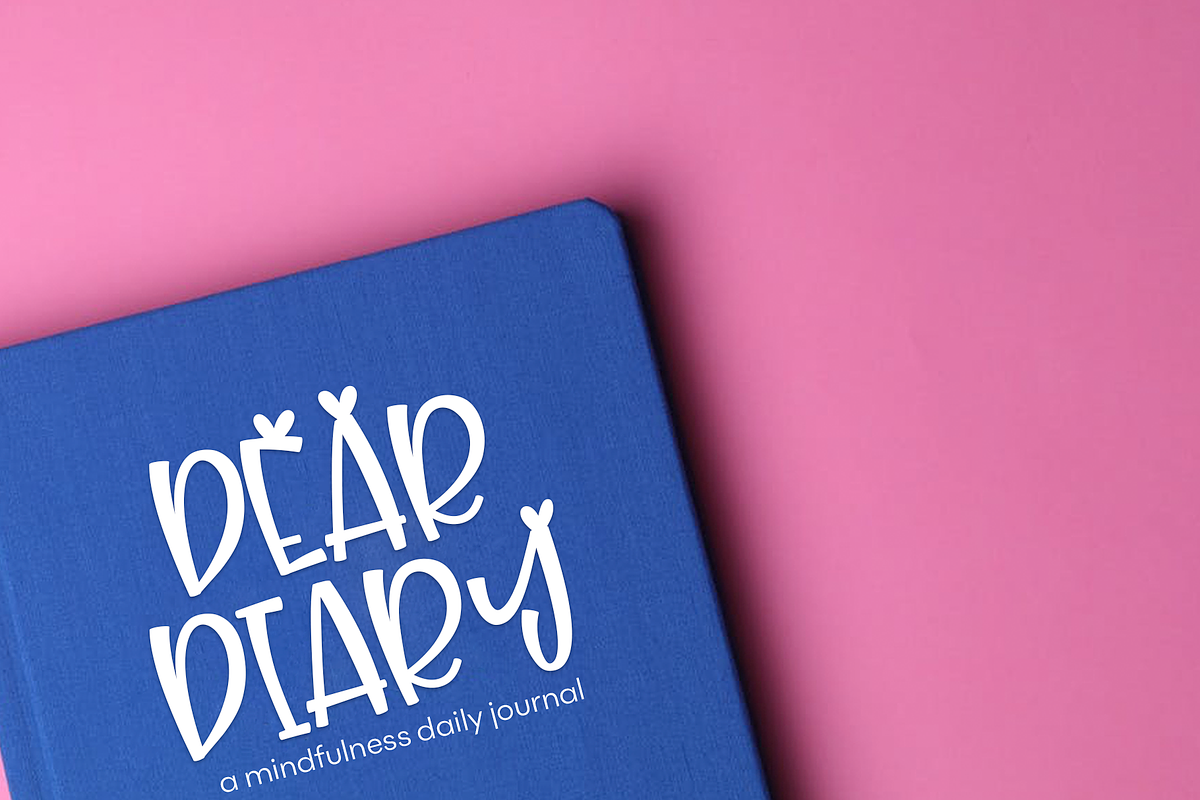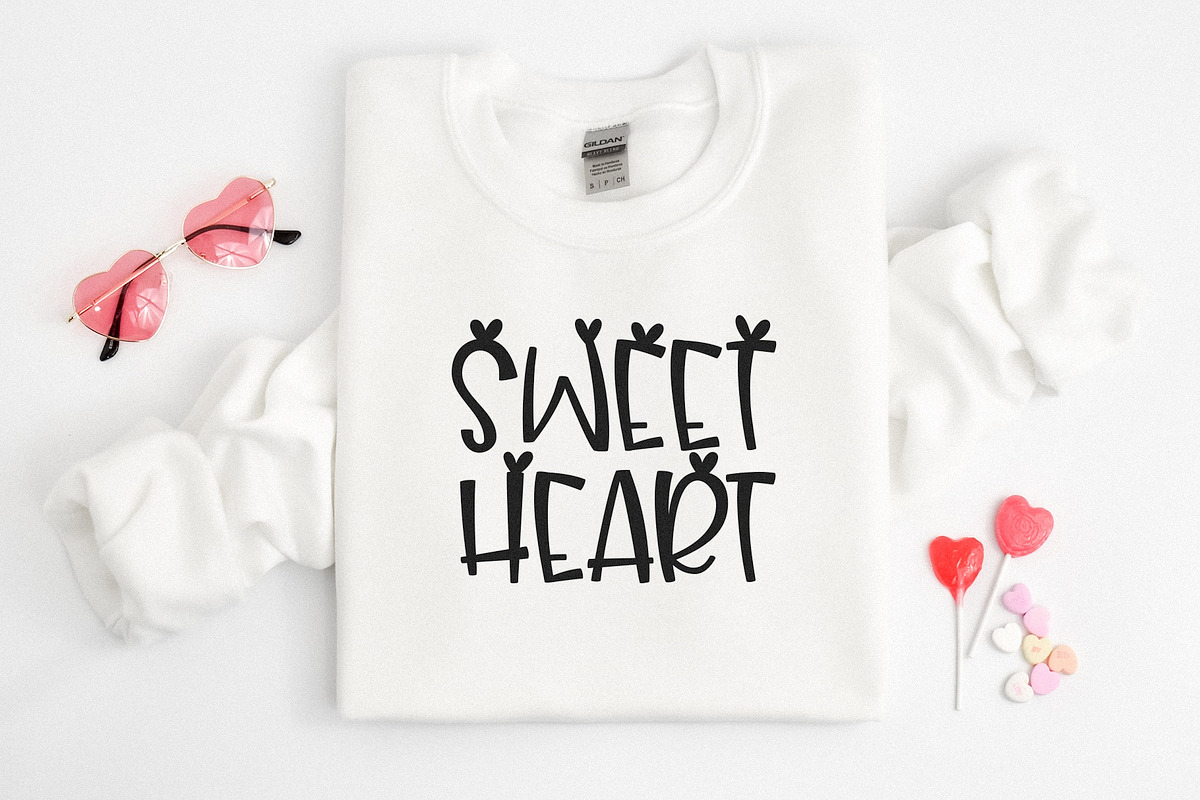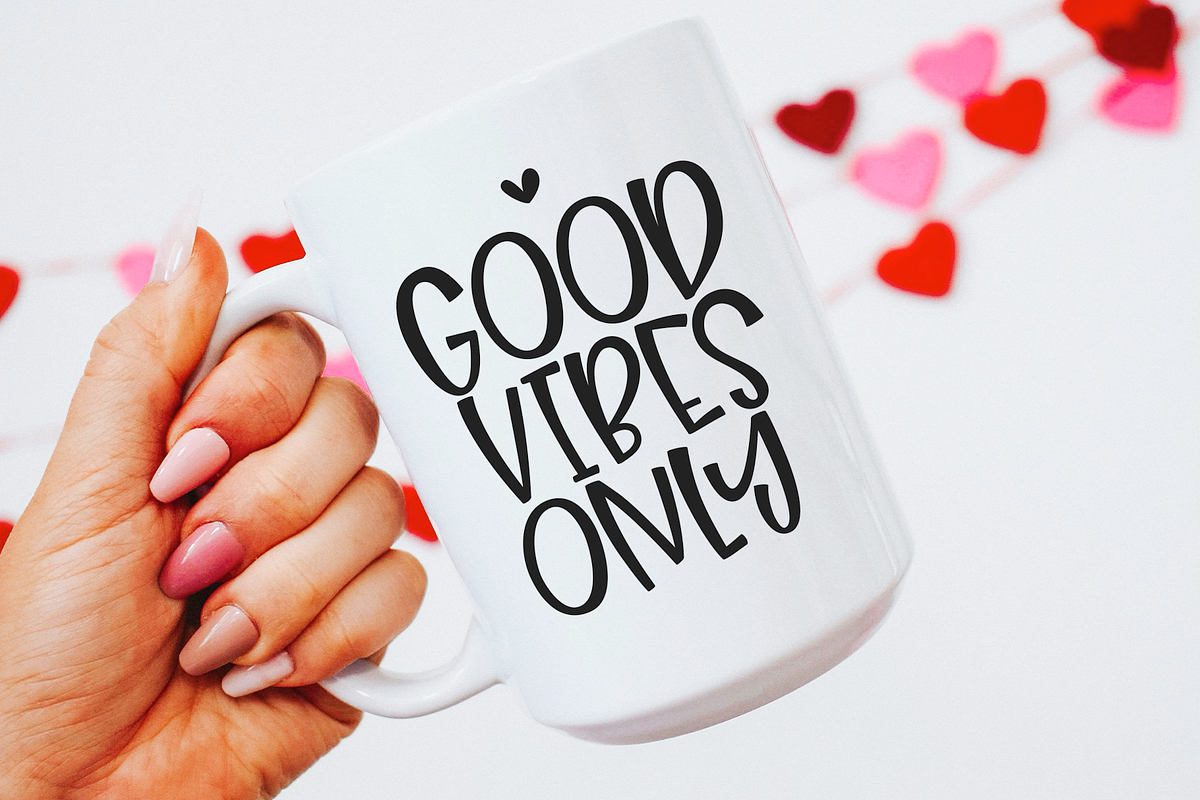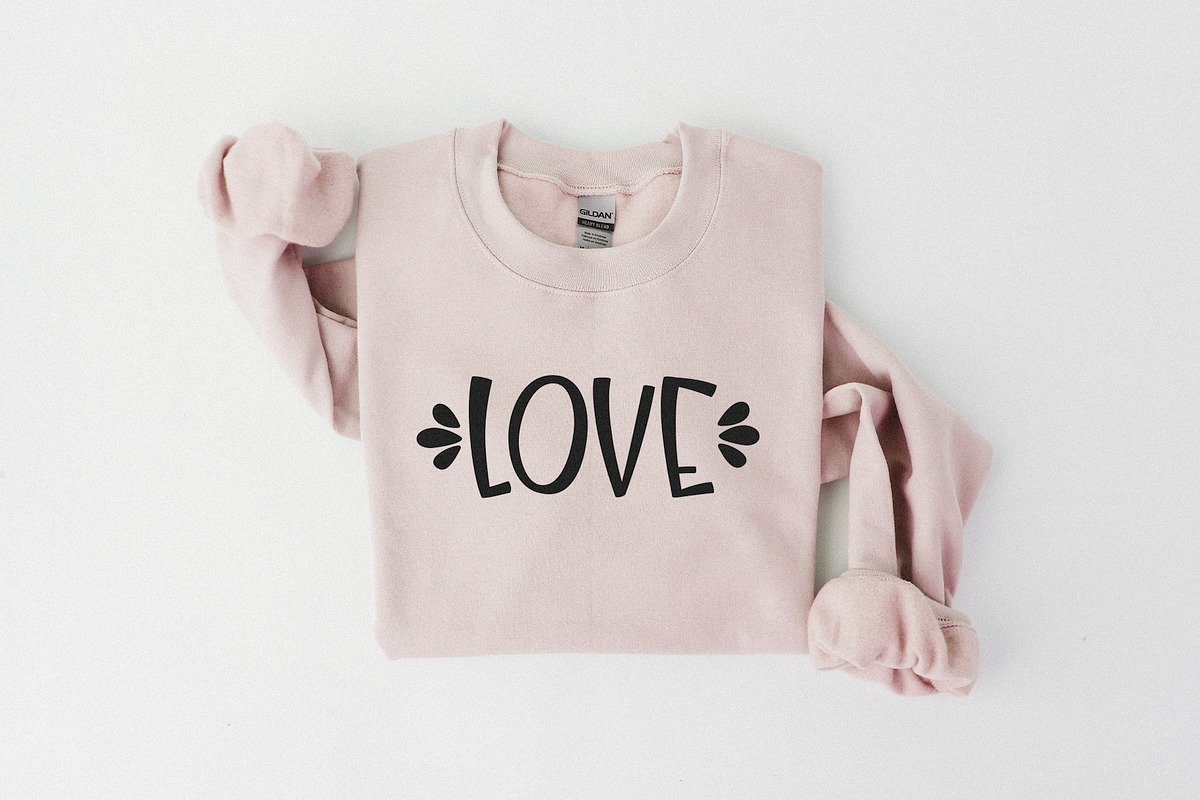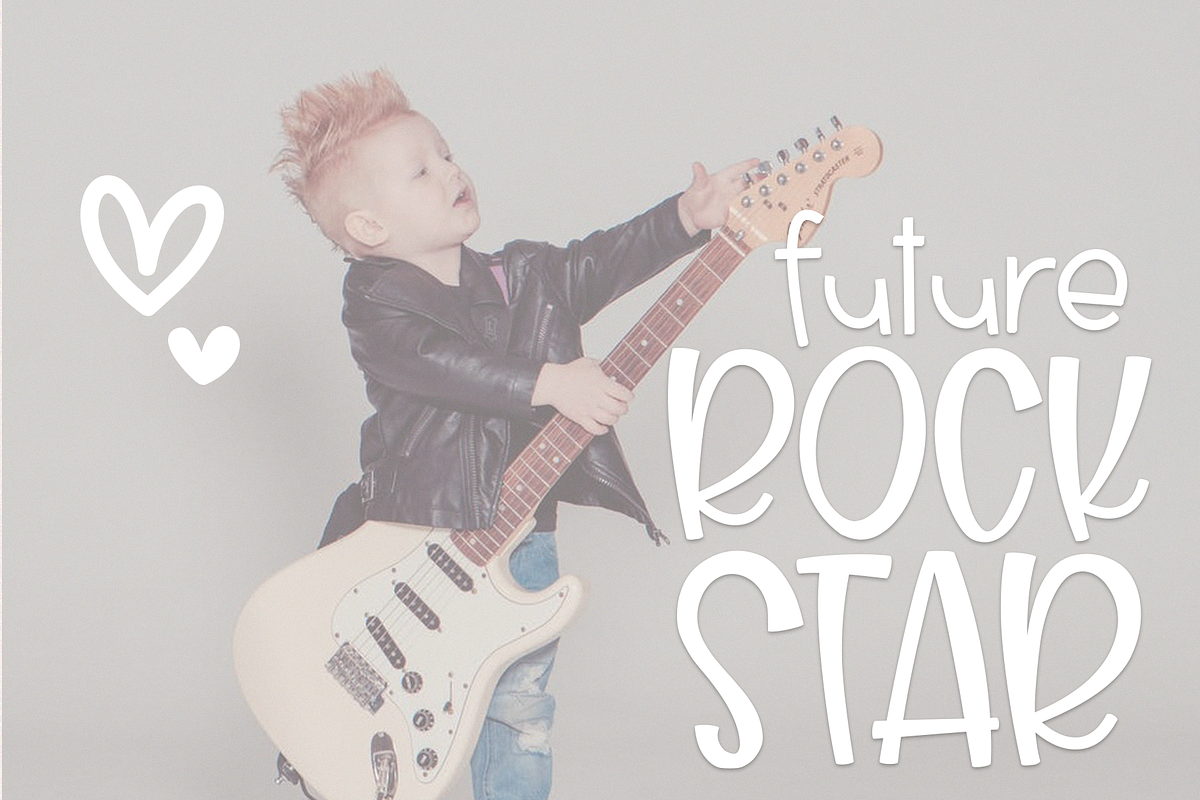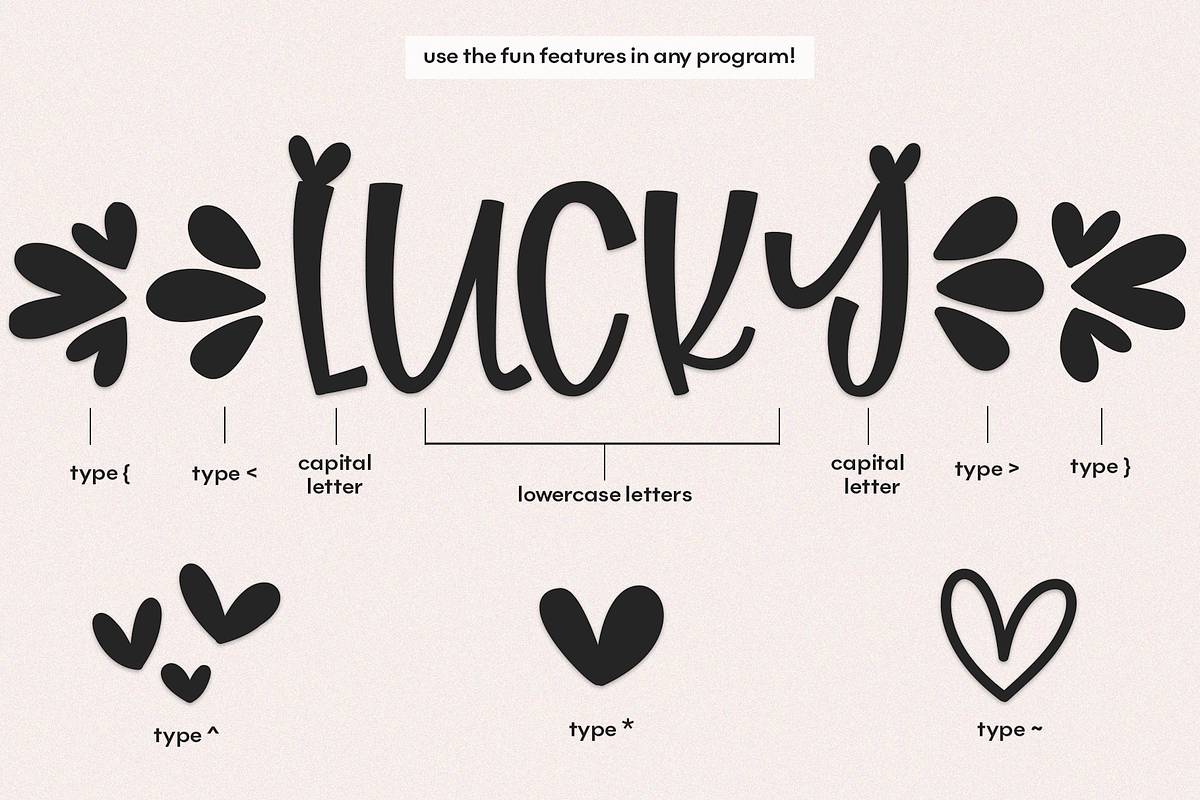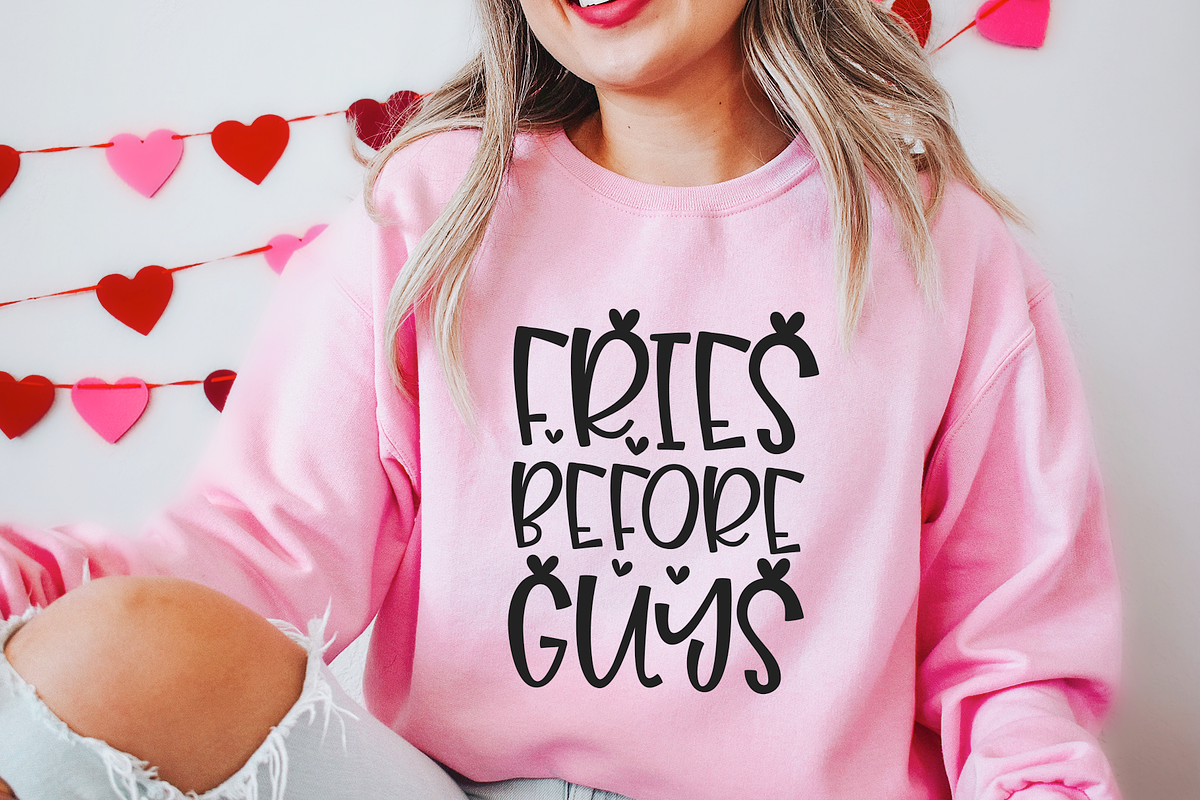
Lucky Charm - A Handwritten Font
Lucky Charm is a handwritten font with big, quirky letters.
The capital letters have a playful heart above them.
The lowercase letters are plain.
Use characters: , {, }, ^, & ~ to access fun designs!
This font is perfect for cricut projects, t-shirt designs, quotes, headings, blogs, logos, invitations and more!